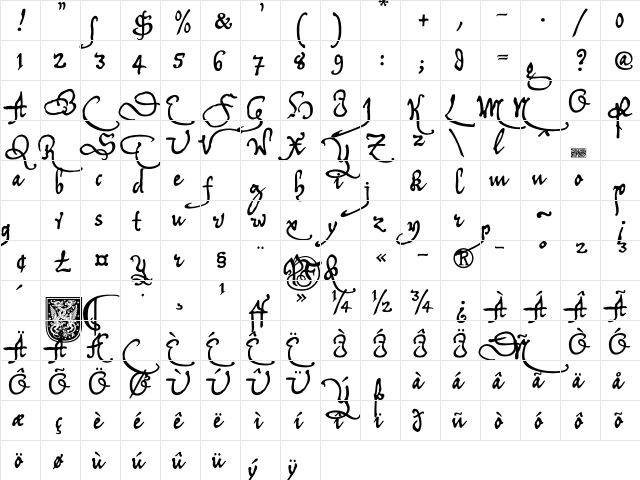
Tycho'sRecipe Regular
| Designer | Pia Frauss |
Design Context for Tycho'sRecipe Typeface
Tycho'sRecipe is a composed and adaptable typeface that performs quietly and consistently across a wide range of design contexts.